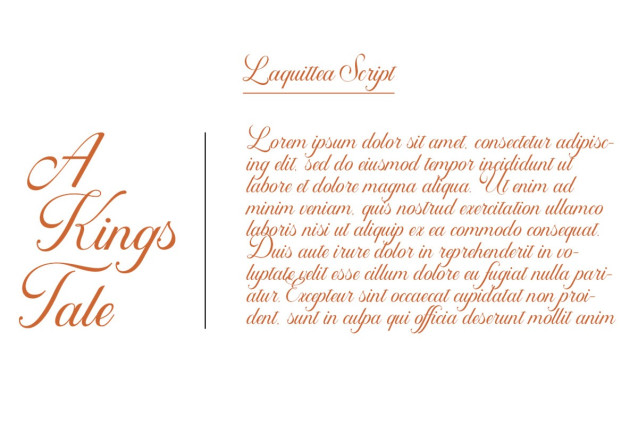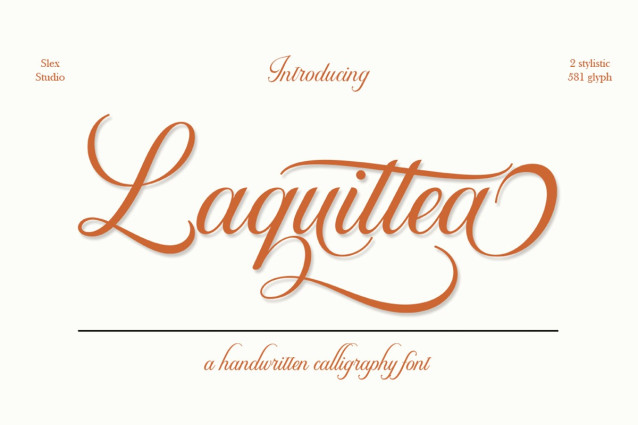
Laquittea Font
Laquittea Font. This beautiful script is for those who need elegance and style for their designs and is perfect for wedding invitations, saving date cards and feminine branding.
Laquittea has 2 styles Regular and Bold includes a full set of Basic Uppercase and Lowercase Characters, Numbers and Punctuation. Also contains ligatures and many alternative styles to perfectly recreate natural calligraphy (check the preview to see them all).